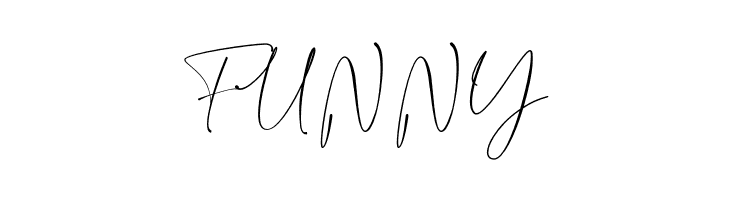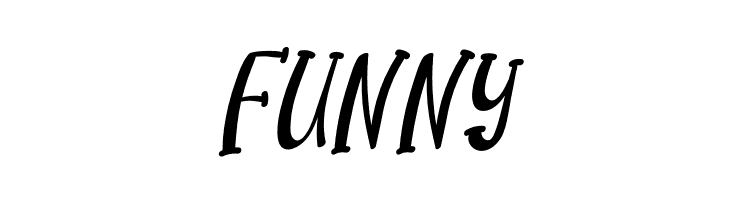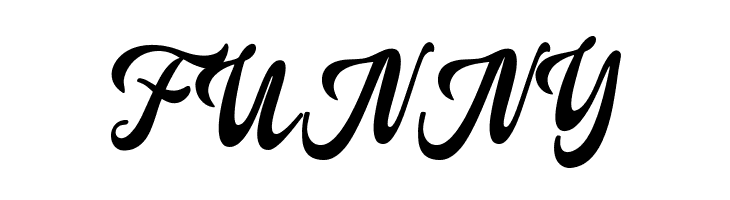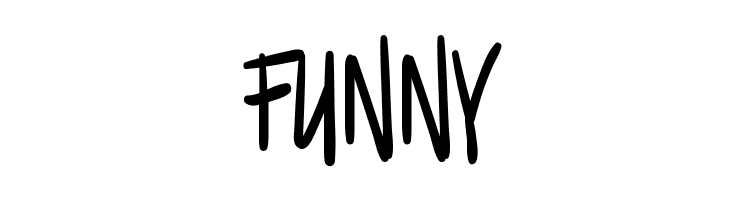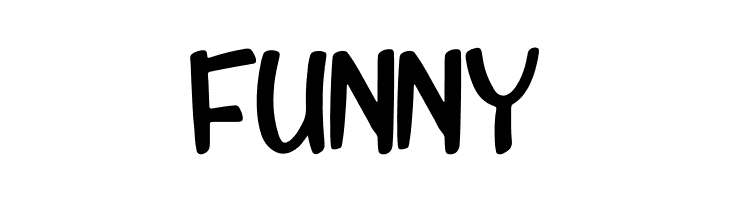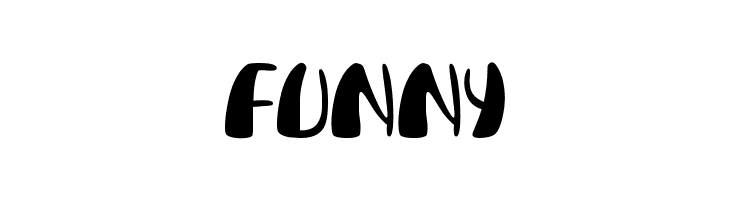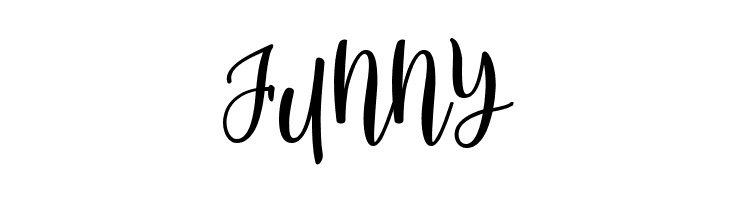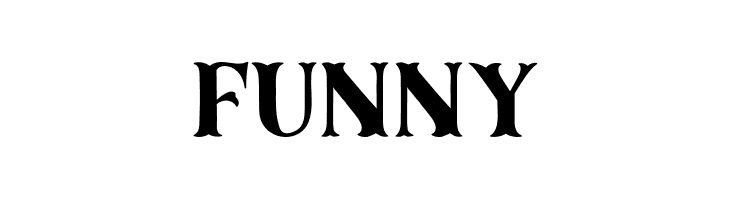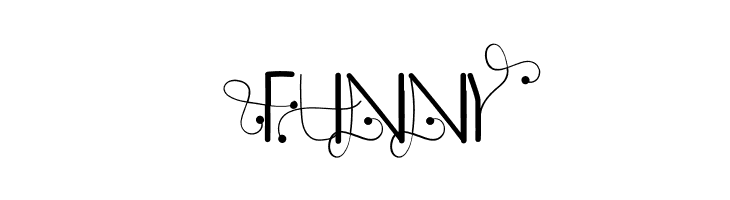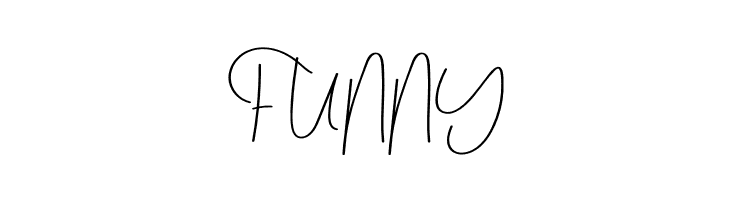
An ornate and decorative font with intricate swirls and loops.
A bold, elegant script font with flowing, interconnected letters.
A bold, elegant script font with flowing curves and sophisticated style.
A bold, hand-drawn font with a playful and informal style.
A bold, handwritten font with a playful and informal style.
A bold, italicized handwritten font with dynamic and energetic strokes.
A bold, italicized handwritten font with a dynamic and expressive style.
A lively, flowing script font with elegant, cursive strokes.
A playful, casual handwritten font with smooth, rounded edges and consistent stroke width.
A bold, handwritten font with fluid, energetic strokes.
A bold, gothic-inspired font with sharp serifs and dramatic flair.
A dynamic, fluid script font with a handwritten, casual style.
A dynamic and expressive handwritten font with fluid, flowing letterforms.
A whimsical and elegant script font with flowing, cursive characters.
A bold, angular font with a futuristic and geometric design.
A playful handwritten font with a whimsical and casual style.
A bold, angular font with a gothic influence and high contrast strokes.
A bold, angular Gothic-style font with dramatic and intricate details.
An elegant, cursive font with graceful loops and high contrast strokes.
A playful, hand-drawn font with bold, rounded characters and a whimsical style.
A playful, hand-drawn font with rounded, bold characters and a whimsical style.
A playful, rounded font with a hand-drawn, whimsical style.
A bold, high-contrast serif font with modern cut-out details.
A fluid, elegant handwritten script with artistic loops and swirls.
A playful, bold, and hand-drawn font with a whimsical style.
A playful, handwritten font with whimsical embellishments and medium contrast.
A playful, hand-drawn font with a whimsical and informal style.
A playful, italic script font with a hand-drawn, expressive style.
A playful, italic font with whimsical, cursive-like strokes and creative flourishes.
A thin, elegant script font with flowing cursive strokes.
A playful, bubbly font with rounded characters and whimsical embellishments.
A playful, bold handwritten font with dynamic strokes.
A playful, casual handwritten font with irregular, organic letterforms.
A whimsical and elegant script font with fluid letterforms and dynamic strokes.
Playful and bold decorative font.